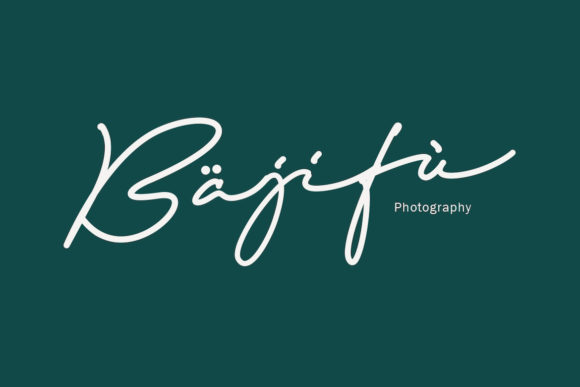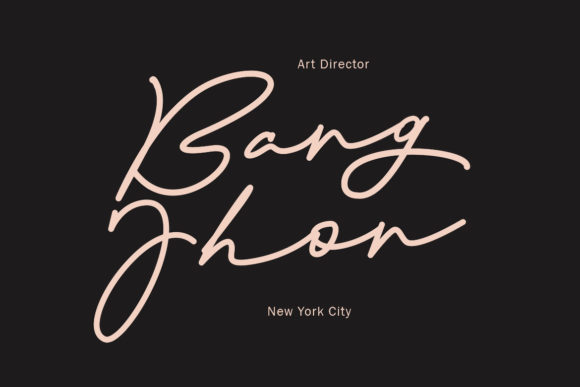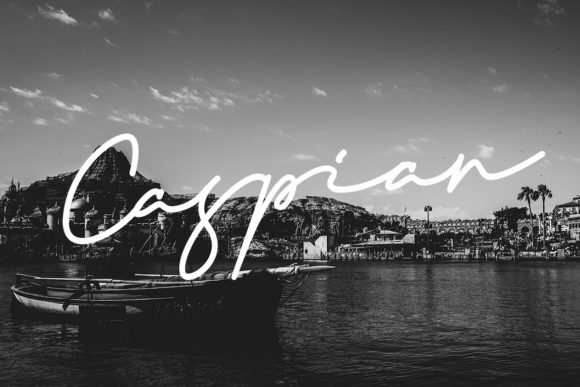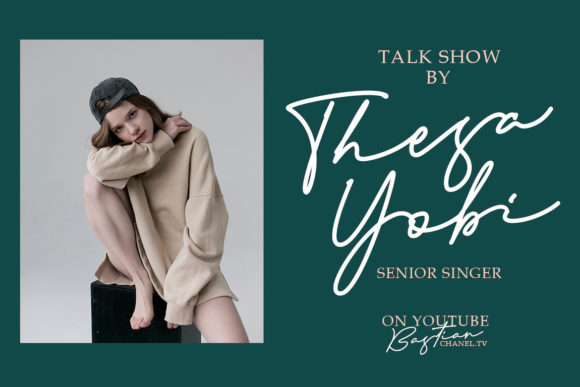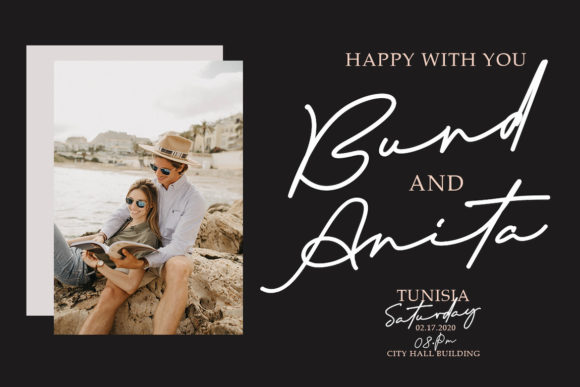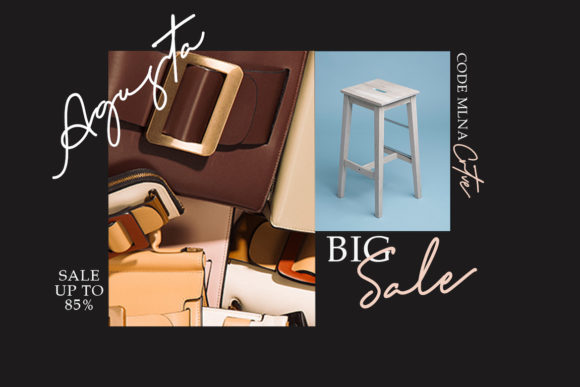
The Perfect Touch of Handcrafted Charm
Have you ever felt that elusive spark of creativity, the moment when your design just comes alive? For many of us, it’s the subtle details that make all the difference – the perfect font, the right color palette, or a dash of personality that sets our work apart. That’s exactly what you get with the beautiful Castile Mastah Font.
This stunning script font is designed to add an authentic, handcrafted touch to your designs. Whether you’re working on a signature, logo, typography quote, magazine cover, or book design, Castile Mastah Font is the perfect companion to elevate your work. With its elegant curves and stylish flair, this font is sure to leave a lasting impression. As a designer, you’ll appreciate the value it brings to your projects – a unique, handmade feel that’s impossible to replicate with generic fonts.
Castile Mastah Font Key Features
- Font Family: Castile Mastah, with a range of weights and styles available
- Unique Characteristics: Castile Mastah features a unique, hand-drawn design with a mix of modern and traditional elements, making it ideal for creative and artistic projects
Castile Mastah Font Review
Overall, I have mixed feelings about the Castile Mastah Font. On one hand, there are some great features that make it a solid choice for certain projects.
- ✨ Unique aesthetic: The font has a distinctive, handmade feel that can add a touch of personality to your designs.
- ✨ Versatile: Castile Mastah can work well for both digital and print projects, making it a versatile option for designers.
- ✨ Well-suited for bold statements: The font’s bold, striking letters make it perfect for headlines and titles.
- ⚠️ Limited legibility at smaller sizes: While the font looks great at larger sizes, it can become difficult to read at smaller font sizes.
- ⚠️ Not ideal for body text: Due to its unique style, Castile Mastah is not well-suited for large blocks of text, making it better suited for accentuating headings and titles.
Overall, I think Castile Mastah Font is a solid choice for designers who want to add a unique touch to their projects. However, it may not be the best fit for every project, particularly those that require large blocks of text or precise typography.
Tips for Getting the Most Out of Castile Mastah Font
Here are some tips to get the most out of Castile Mastah Font:
- Experiment with different font sizes and styles to create visually appealing text.
- Combine Castile Mastah Font with other fonts to create a unique and eye-catching design.
- Use Castile Mastah Font in conjunction with images and graphics to create a cohesive and engaging design.
Common Use Cases for Castile Mastah Font
Alternatives to Castile Mastah Font
Raleway Font
Raleway is a sans-serif font designed by Matt McInerney. It is a modern and elegant font that works well for both print and digital media. Raleway is a great alternative to Castile Mastah Font when you need a clean and sophisticated look. It is more readable at smaller font sizes and has a wider range of weights and styles available.
Comparison to Castile Mastah Font: Raleway has a more modern and sleek feel compared to the more vintage and rustic look of Castile Mastah Font.